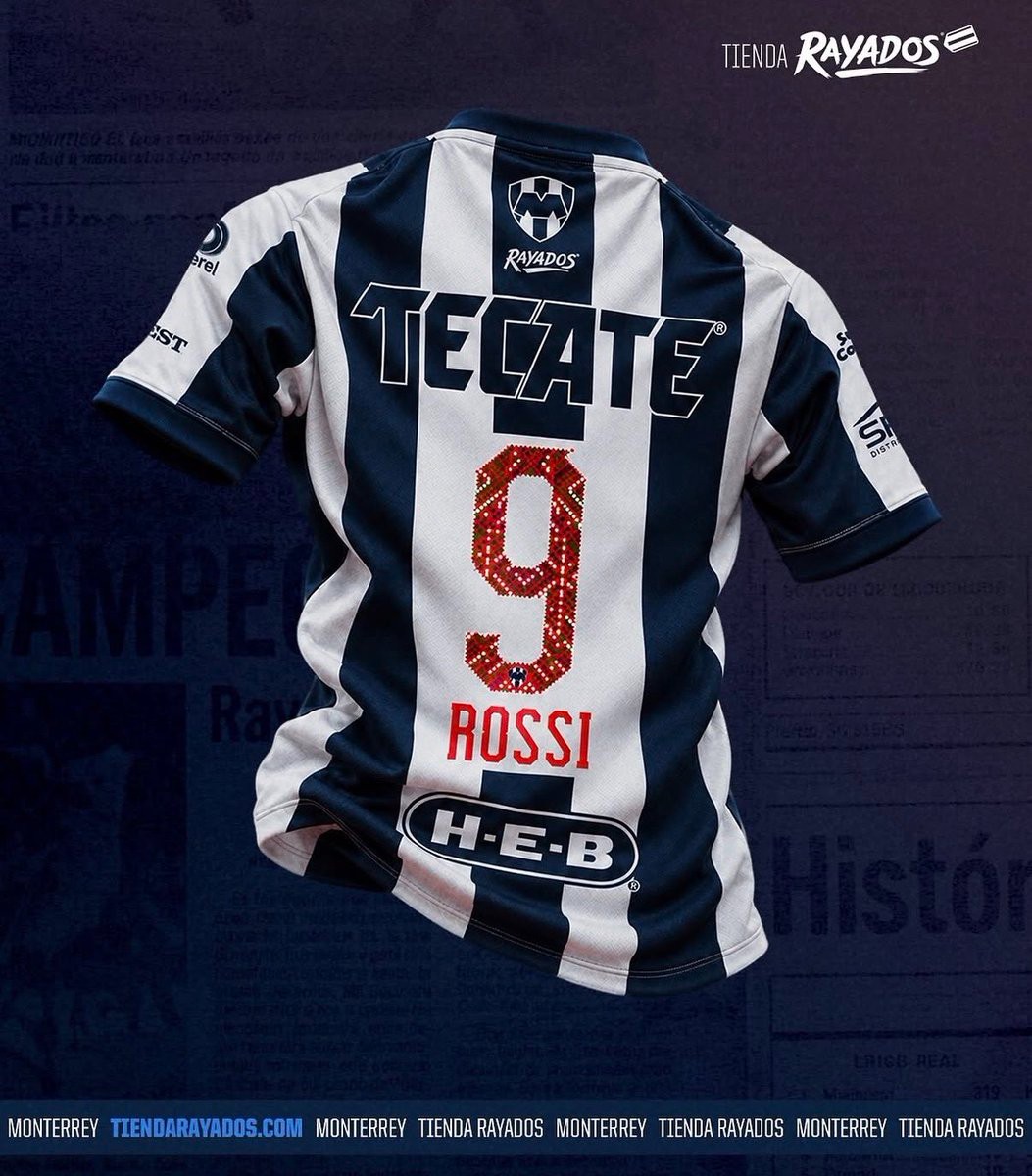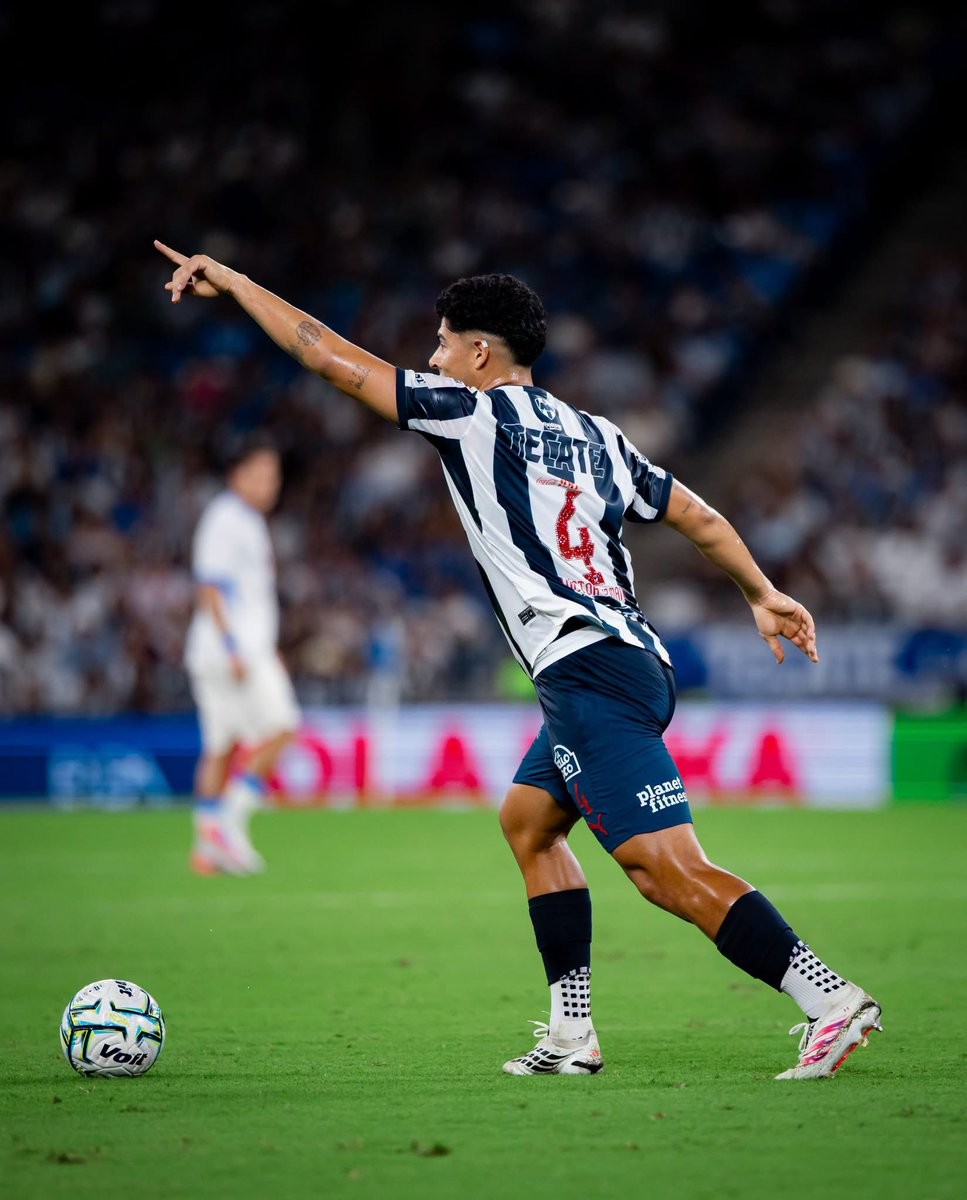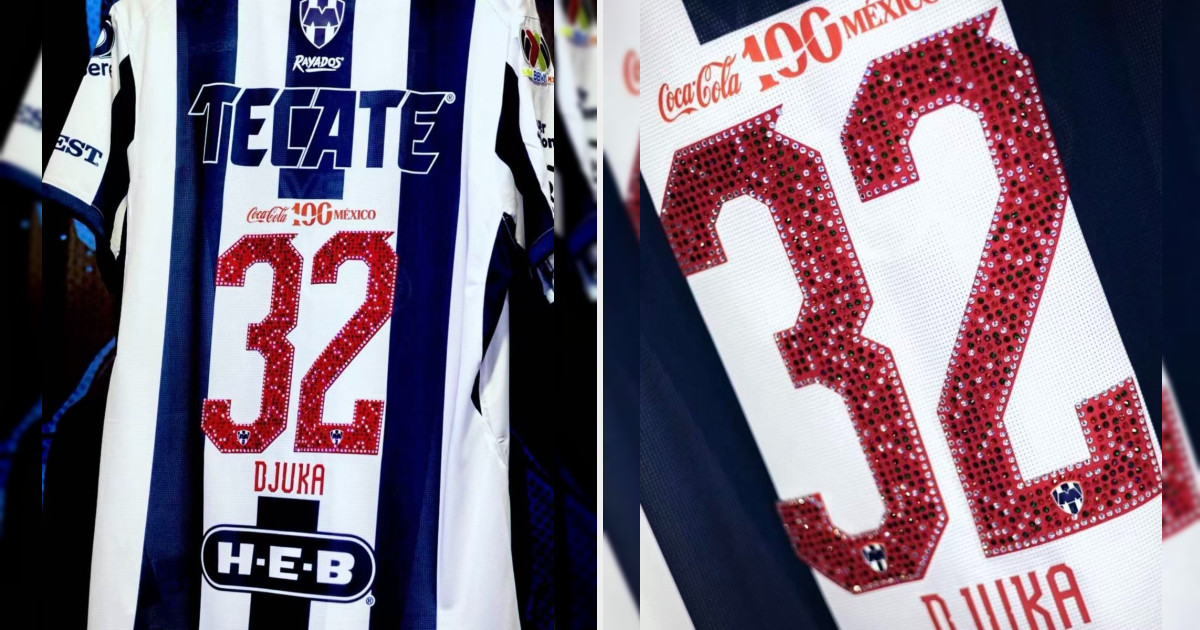
Monterrey Debuts Special Coca-Cola 100th Anniversary Kit Font
CF Monterrey sported a special commemorative nameset on their 26-27 Puma home kit during their Liga MX match against Cruz Azul at Estadio BBVA. The bespoke squad numbers and lettering were created in collaboration with longtime club partner Coca-Cola to celebrate the company's 100th anniversary in Mexico (1926-2026).
The font features an eye-catching textured look inspired by traditional Mexican artisan beadwork. Rendered in a bold red base adorned with intricate white, green, and red jewel-like accents reflecting the national flag, each number also integrates a subtle Rayados crest at the base. Positioned neatly above the numbers is the official red Coca-Cola 100 México anniversary script and lockup.